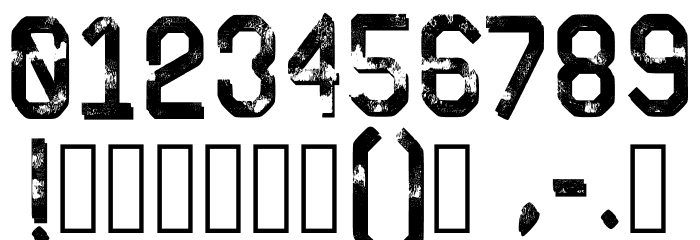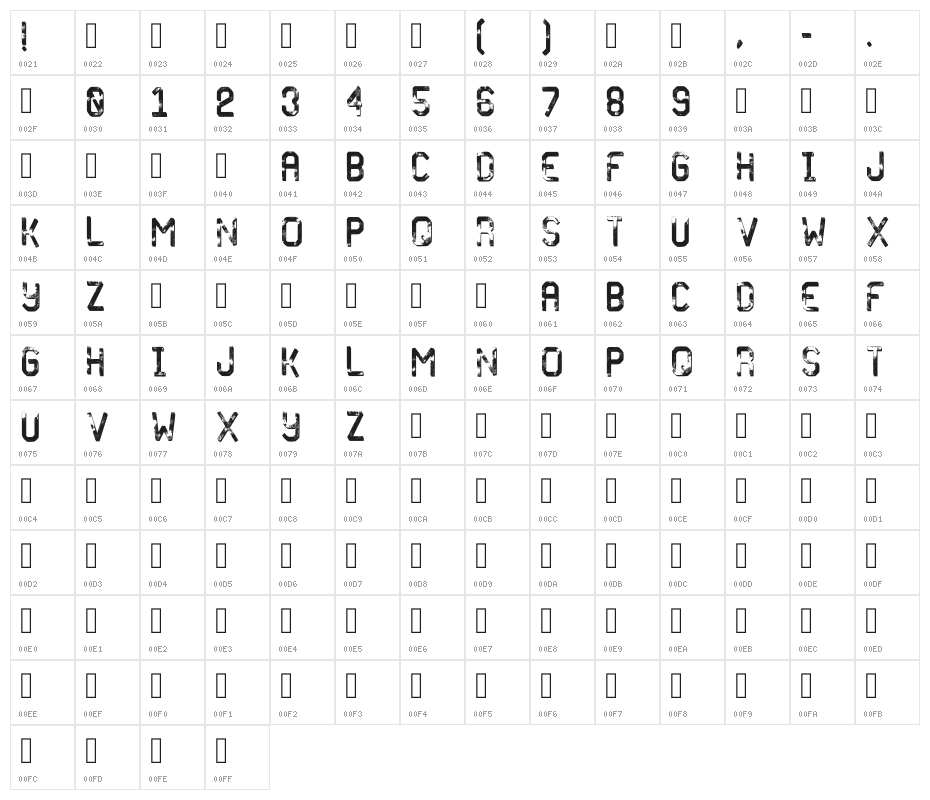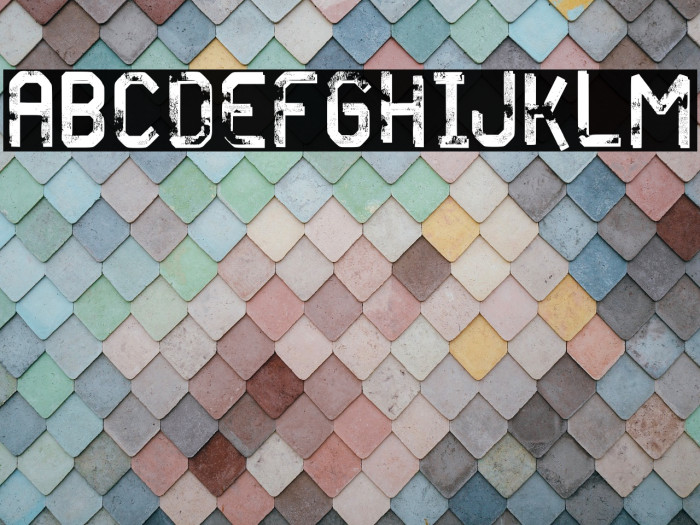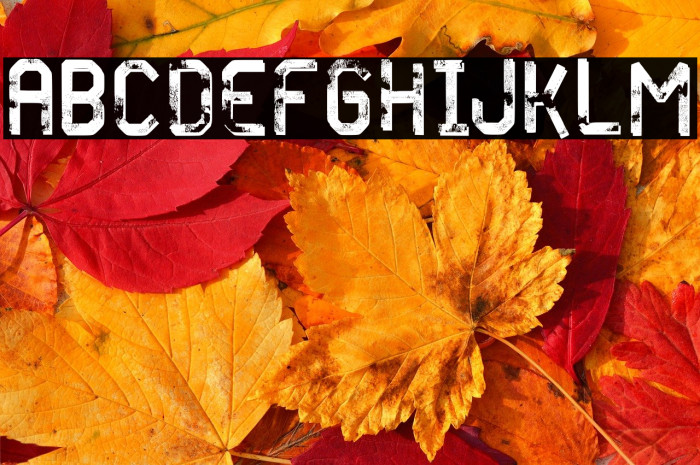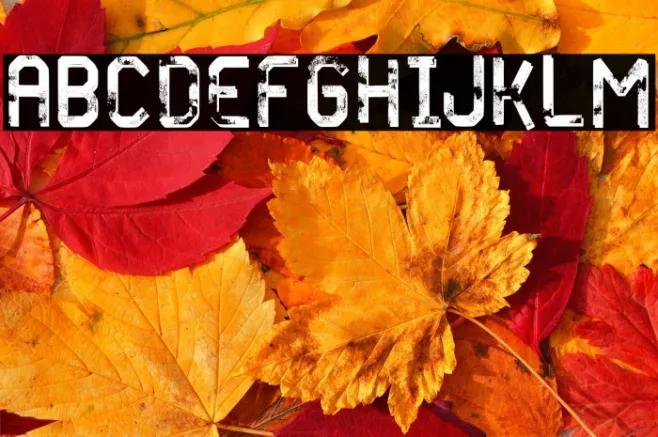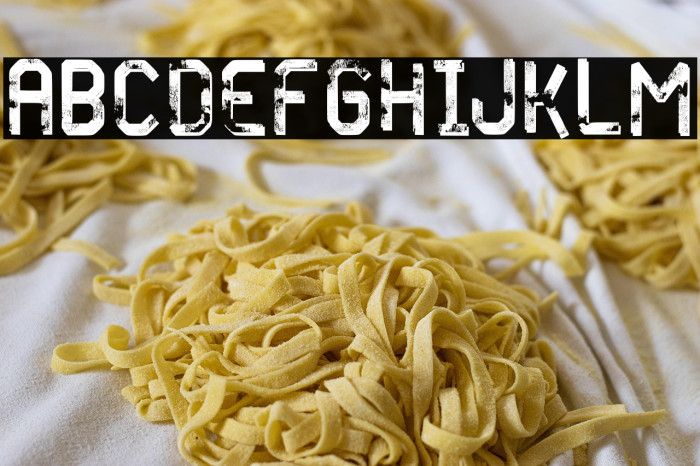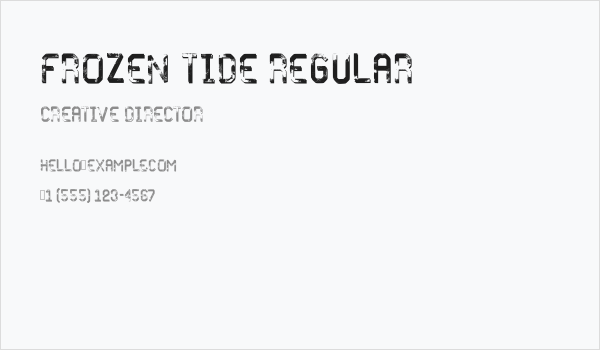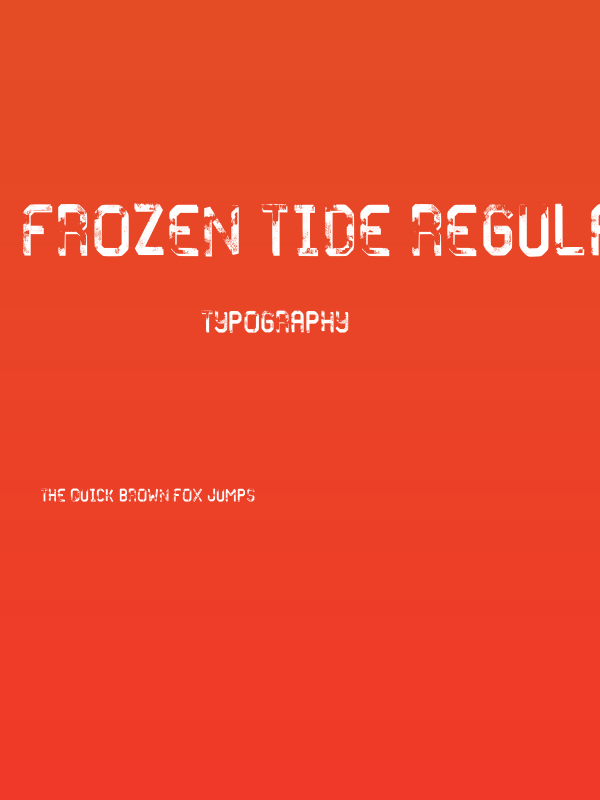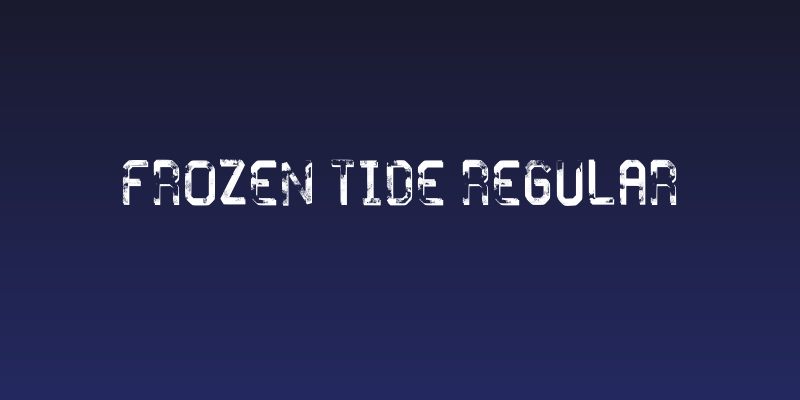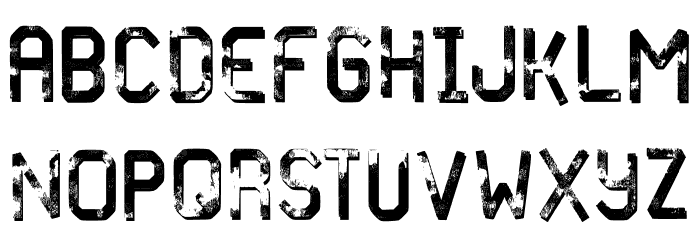
Frozen Tide Regular Font
Frozen Tide Regular Description
This font features a bold, distressed style with a textured appearance that mimics the look of weathered or eroded surfaces. The characters are uppercase and have a blocky, geometric structure, giving them a strong and impactful presence. The distressed effect adds a rugged, vintage feel, making it ideal for designs that require a gritty or industrial aesthetic. The numbers and special characters maintain the same distressed look, ensuring consistency across all elements. This font is perfect for projects that aim to convey strength, resilience, or a sense of history.
| Proposed Projects | Ideal for posters, album covers, branding for outdoor or adventure-themed products, and any design requiring a strong, gritty look. |